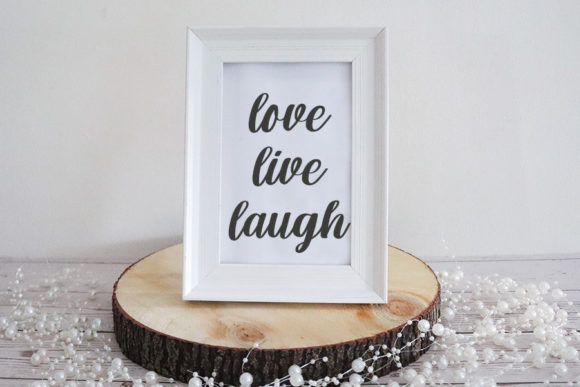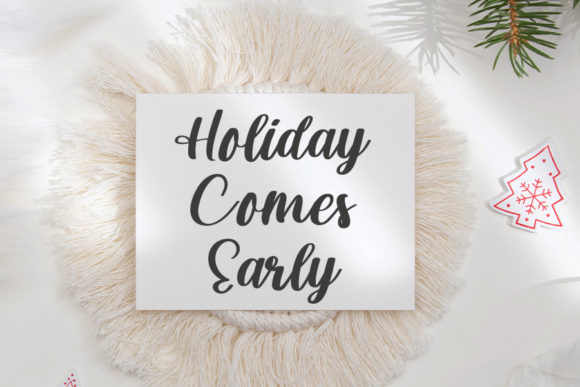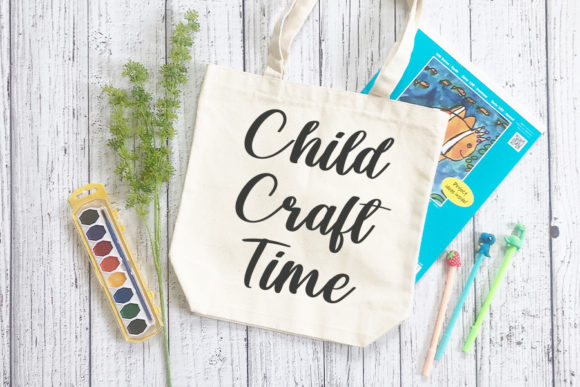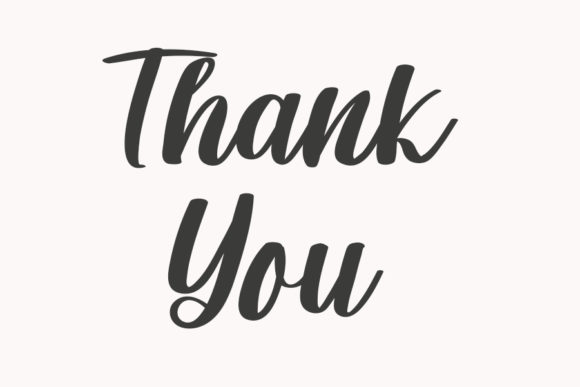
Dandelions Font: The Charming and Elegant Choice for Designers and Crafters
Are you a designer or crafter looking for a font that exudes charm and elegance? Look no further than Dandelions Font. This beautiful handwritten font is perfect for adding a touch of sophistication to any design project. In this article, we’ll explore the features and benefits of Dandelions Font, and show you how to make the most of this stunning font in your designs.
What is Dandelions Font?
Dandelions Font is a beautiful handwritten font that feels equally charming and elegant. Its unique and flowing script makes it perfect for designs that require a personal touch. Whether you’re creating wedding invitations, thank you cards, quotes, greeting cards, logos, or business cards, Dandelions Font is the perfect choice.
Features of Dandelions Font
Dandelions Font has several features that make it a standout choice for designers and crafters. Some of its key features include:
- Handwritten script: Dandelions Font has a beautiful handwritten script that gives it a personal and unique touch.
- Elegant and charming: The font exudes elegance and charm, making it perfect for designs that require a sophisticated look.
- Versatile: Dandelions Font can be used for a wide range of design projects, from wedding invitations to business cards.
- Easy to read: The font is easy to read, making it perfect for designs that require a clear and legible script.
Benefits of Using Dandelions Font
There are several benefits to using Dandelions Font in your designs. Some of the key benefits include:
- Adds a personal touch: Dandelions Font adds a personal touch to your designs, making them stand out from the crowd.
- Perfect for wedding designs: The font is perfect for wedding designs, such as wedding invitations, thank you cards, and wedding stationery.
- Great for crafters: Dandelions Font is also great for crafters who want to add a personal touch to their projects, such as handmade cards and gift tags.
Tips for Using Dandelions Font
Here are some tips for using Dandelions Font:
- Use it for headings: Dandelions Font is perfect for headings and titles, such as wedding invitation headings and quote titles.
- Pair it with other fonts: Pair Dandelions Font with other fonts, such as a sans-serif font, to create a beautiful contrast.
- Adjust the size: Adjust the size of the font to suit your design needs.
Dandelions Font is a beautiful and elegant font that is perfect for designers and crafters. Its unique handwritten script and charming feel make it a standout choice for a wide range of design projects. With its ease of use and versatility, Dandelions Font is a great addition to any designer’s or crafter’s font collection.
Whether you’re creating wedding invitations, thank you cards, quotes, greeting cards, logos, or business cards, Dandelions Font is the perfect choice. So why not give it a try and see how it can add a touch of elegance and charm to your designs?